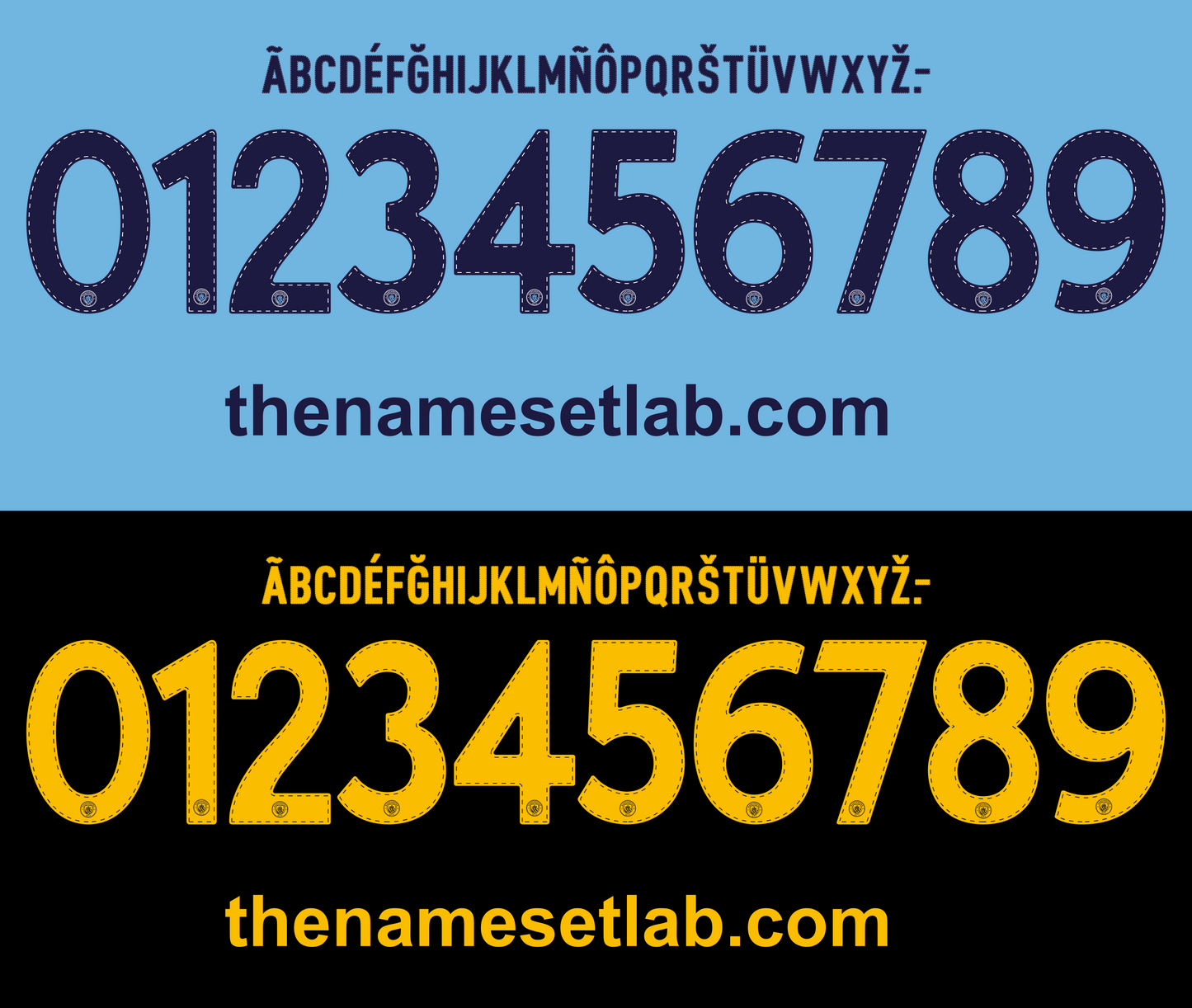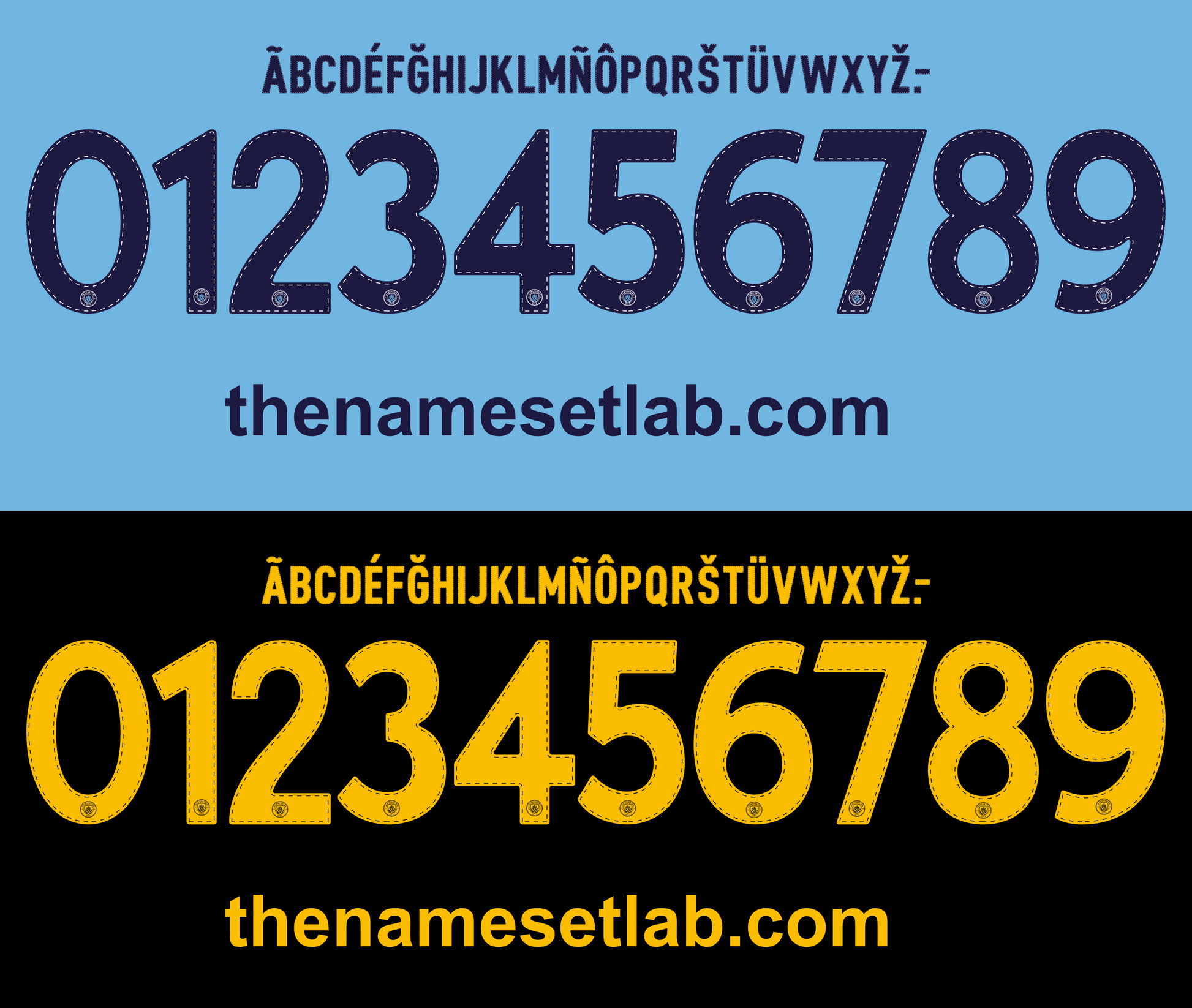
Manchester City-22-23 UCL / Cup Font Nameset AI Vector File
Download this Manchester City 2022-2023 UCL / Cup nameset as an editable .ai vector file. Styled in the 22/23 font, it’s perfect for recreating shirts from their historic treble-winning season under Pep Guardiola, capped by lifting the Champions League trophy. Ideal for custom football projects or memorabilia collections.